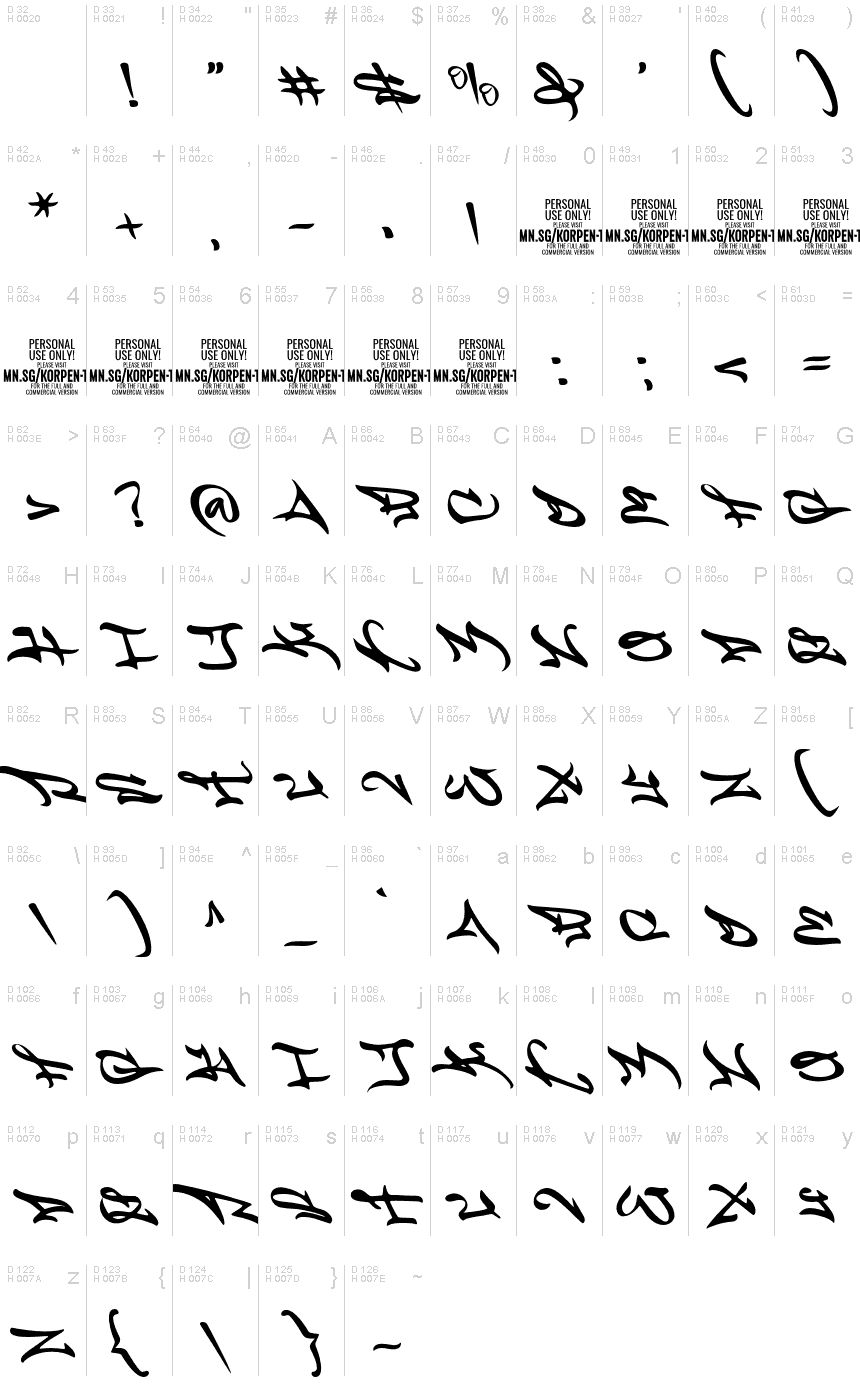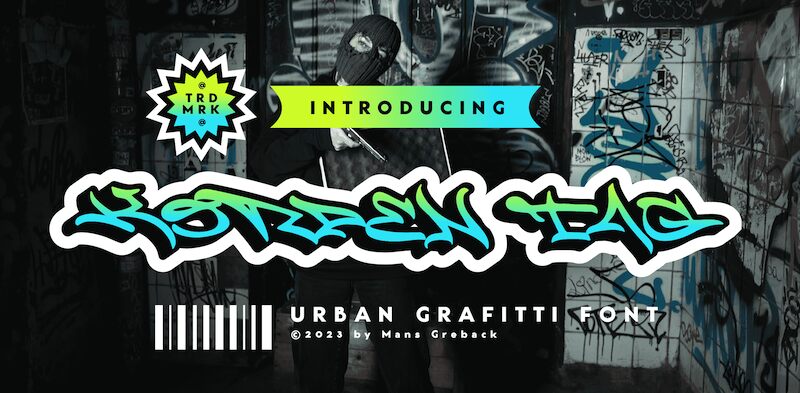
Korpen Tag PERSONAL USE Regular
Korpen Tag, designed by Mans Greback, is a graffiti-inspired semi-light font with an extra-expanded width. Perfect for projects that require a bold and edgy look, Korpen Tag can be used for anything from streetwear branding to album covers. Its unique style will add a touch of rebellion to any design project. Use it to create eye-catching posters, flyers or even social media graphics. Korpen Tag's distinctive features make it stand out from other fonts and ensure that your message will never go unnoticed. Get creative with this font and let your designs speak louder than words!
Korpen Tag is a cool and edgy graffiti font that captures the essence of street art and urban culture. With its tag-inspired handwriting and paintbrush strokes, Korpen Tag adds a raw, energetic touch to your designs.
This typeface is created by human hand and artificial intelligence.